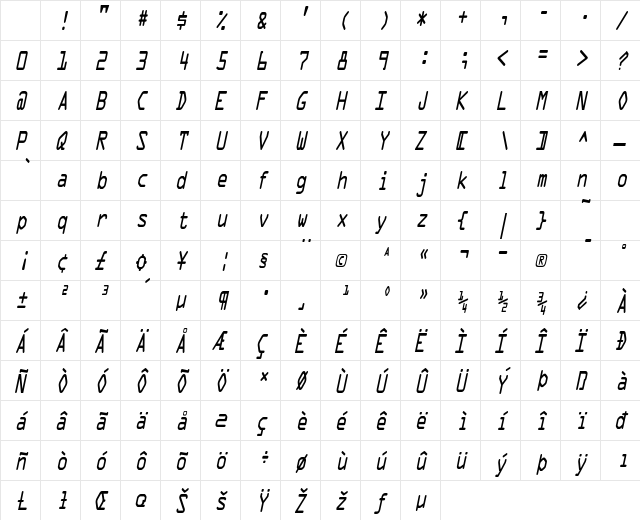
Complete MicroscanACondensed Oblique glyph index. Displaying only characters natively supported by MicroscanACondensed Oblique font.
MicroscanACondensed is a composed and adaptable typeface that performs quietly and consistently across a wide range of design contexts. The slanted form adds forward momentum and visual energy. Its narrow stance lets it pack a punch even in space-constrained designs.
Pro Tip: Use MicroscanACondensed for emphasis, pull quotes, and subheadings where its slanted energy can add rhythm to the layout.